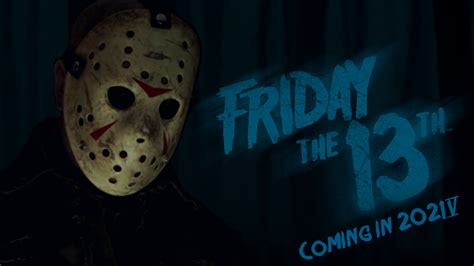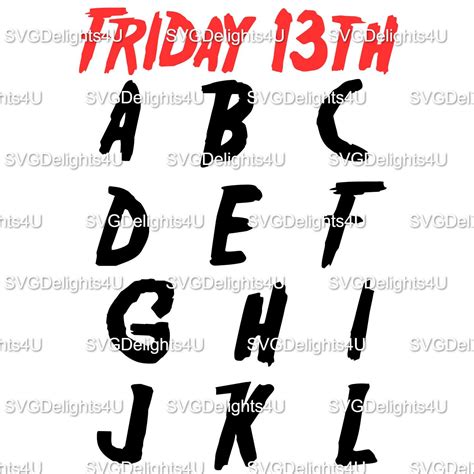
In the realm of horror cinema, few franchises have left as indelible a mark as Friday the 13th. The iconic series, which began in 1980, has spawned numerous sequels, remakes, and a vast array of merchandise. Among the many elements that contribute to the franchise's enduring appeal, one stands out: the Friday the 13th font. This distinctive typeface has become synonymous with the series, evoking a sense of dread and anticipation in fans and casual viewers alike. Let's delve into the history, design, and cultural impact of this iconic font.
The Origins of the Friday the 13th Font
The Friday the 13th font made its debut in the original 1980 film, directed by Sean S. Cunningham. The font was designed to capture the eerie and unsettling atmosphere of the movie, which revolves around a group of camp counselors who are stalked and killed by an unknown assailant. The typeface's jagged, uneven lines and eerie, hand-drawn aesthetic perfectly complement the film's themes of horror and suspense.
The font was created by a graphic designer who was tasked with developing a unique and memorable look for the film's promotional materials. The designer drew inspiration from various sources, including vintage horror movie posters and classic horror literature. The result was a typeface that was both distinctive and instantly recognizable, setting the stage for its enduring popularity.
The Design of the Friday the 13th Font
The Friday the 13th font is characterized by its irregular, hand-drawn style. The letters are uneven and slightly distorted, giving the typeface a sense of chaos and unpredictability. This design choice was intentional, as it reflects the film's themes of violence and unpredictability. The font's jagged edges and uneven lines also contribute to its eerie and unsettling aesthetic, making it a perfect fit for the horror genre.
One of the most striking features of the Friday the 13th font is its use of negative space. The letters are often filled with black, creating a stark contrast against the white background. This contrast enhances the font's visual impact, making it stand out even in small sizes. The use of negative space also adds depth to the typeface, giving it a three-dimensional quality that is both unique and memorable.
The Friday the 13th font is available in various styles, including bold, italic, and outline. Each style maintains the font's distinctive hand-drawn aesthetic while offering different levels of emphasis and contrast. The bold style, for example, features thicker lines and more pronounced edges, making it ideal for headlines and titles. The italic style, on the other hand, has a more flowing and dynamic appearance, making it suitable for body text and captions.
The Friday the 13th font is also highly versatile, making it suitable for a wide range of applications. It can be used in print and digital media, including posters, flyers, websites, and social media graphics. The font's distinctive style makes it a popular choice for horror-themed events, such as Halloween parties and horror movie marathons. It is also a favorite among graphic designers and artists who seek to create a sense of mystery and intrigue in their work.
The Cultural Impact of the Friday the 13th Font
The Friday the 13th font has had a significant impact on popular culture, becoming one of the most recognizable and iconic typefaces in the horror genre. Its distinctive style has inspired countless imitations and homages, from horror movie posters to video game titles. The font's enduring popularity is a testament to its timeless design and its ability to evoke a sense of dread and anticipation in viewers.
The Friday the 13th font has also played a role in shaping the visual language of horror cinema. Its use in the original film helped to establish a visual style that would be emulated by subsequent horror movies. The font's jagged, uneven lines and eerie, hand-drawn aesthetic have become synonymous with the horror genre, influencing the design of countless horror movie posters, trailers, and promotional materials.
The Friday the 13th font has also become a cultural icon in its own right, appearing in various forms of media and merchandise. It can be found on t-shirts, posters, and other collectibles, as well as in video games, television shows, and movies. The font's distinctive style has made it a popular choice for horror-themed events and activities, from Halloween parties to horror movie marathons.
The Friday the 13th font has also inspired a number of creative projects and collaborations. Artists and designers have used the font as a starting point for their own creations, exploring its potential in various mediums and styles. The font's versatility and timeless design make it a popular choice for artists and designers who seek to create a sense of mystery and intrigue in their work.